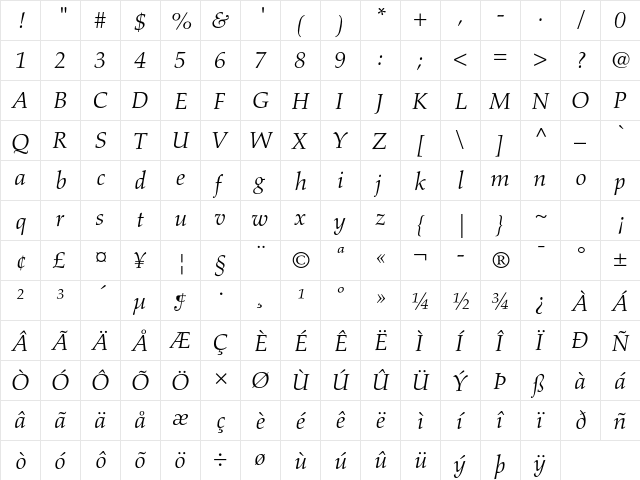
Aldus LT Std Italic
| Designer | Hermann Zapf |
Design Context for Aldus LT Std Typeface
Aldus LT Std is a composed and adaptable typeface that performs quietly and consistently across a wide range of design contexts. Its italic angle brings a sense of urgency and motion to the letterforms. Its slender proportions lend an understated elegance to any composition.
Pro Tip: Use Aldus LT Std for emphasis, pull quotes, and subheadings where its slanted energy can add rhythm to the layout.